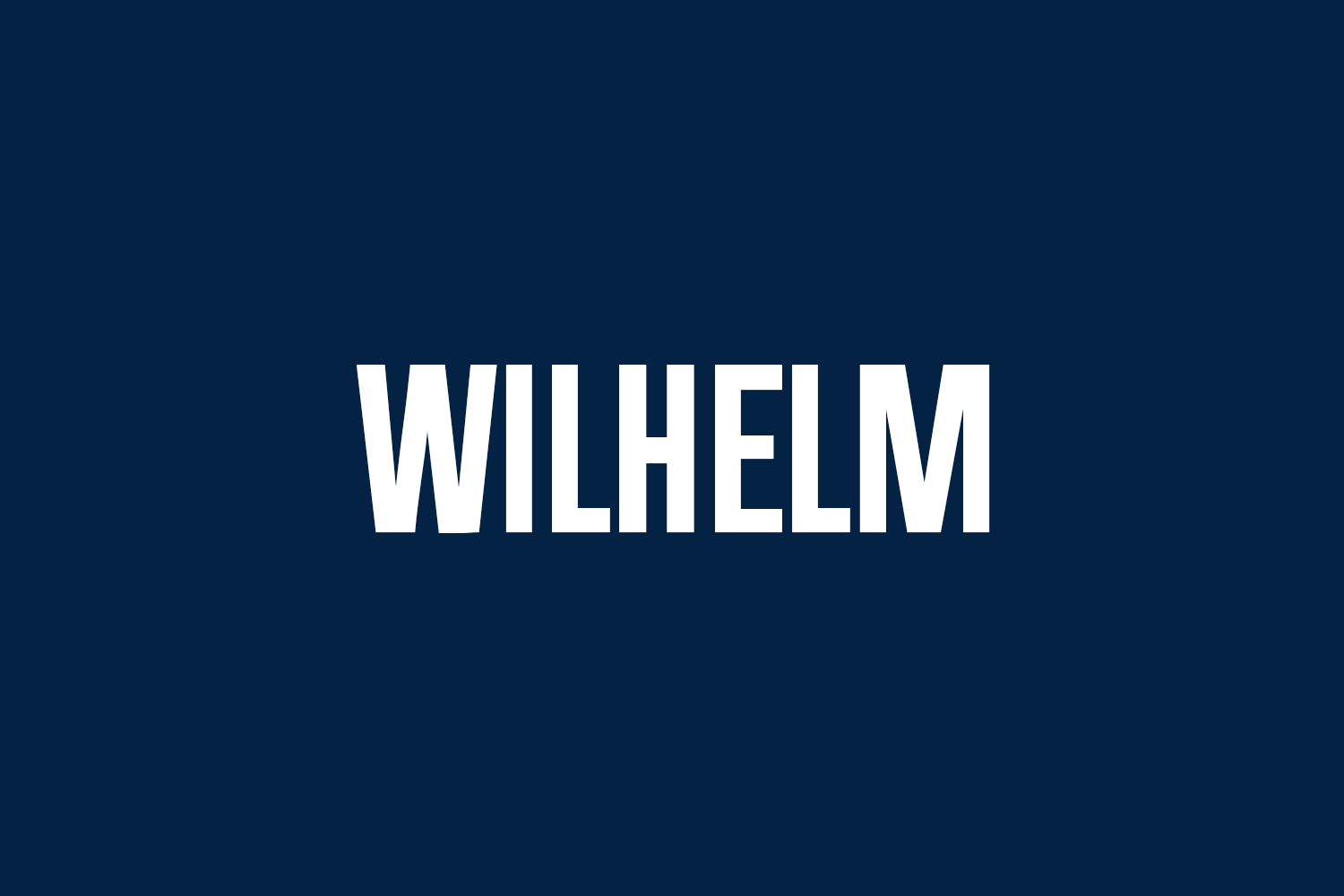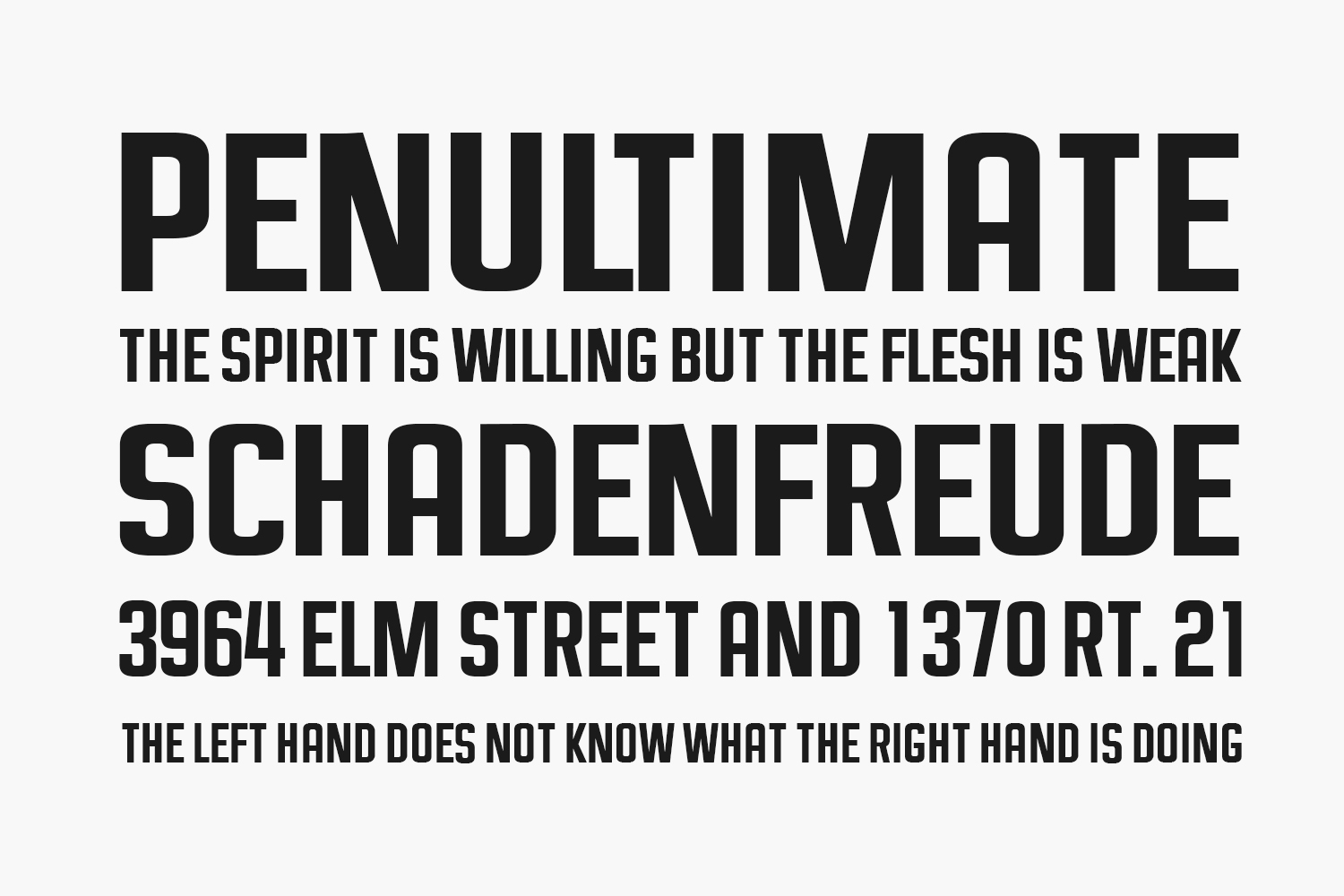
Wilhelm Free Font is a bold and sharp-looking display font, that will truly inspire your works. Use this font for your designs and explore its endless possibilities. Wilhelm Free Font was designed by Vladimir Nikolic and is free for personal use only. Please purchase the full version for commercial use.
Designed by Vladimir Nikolic